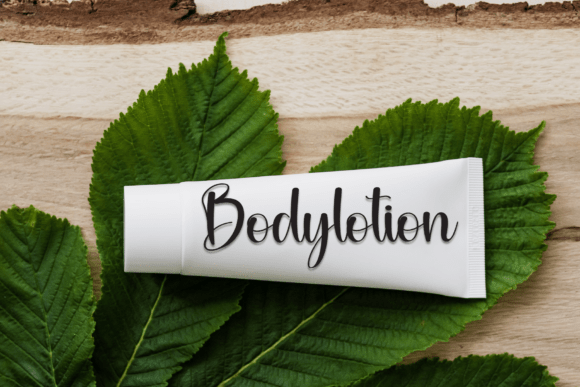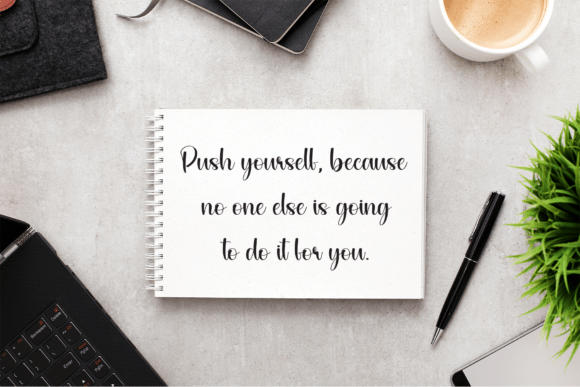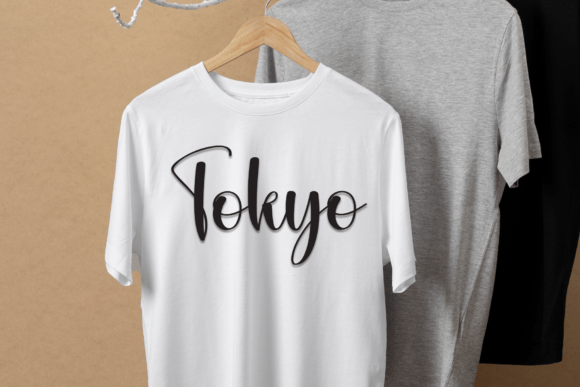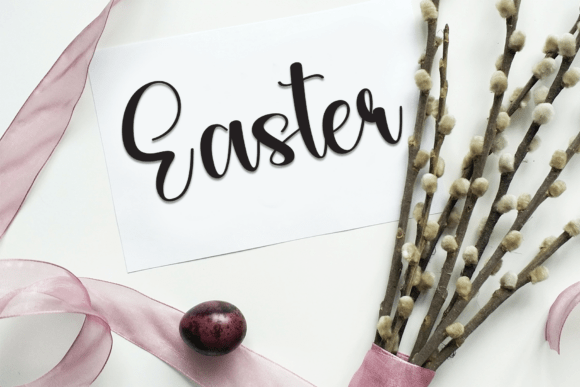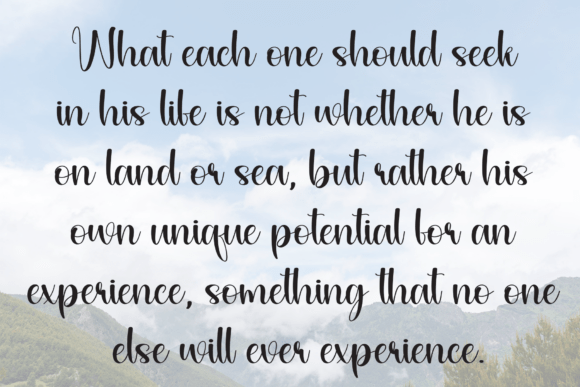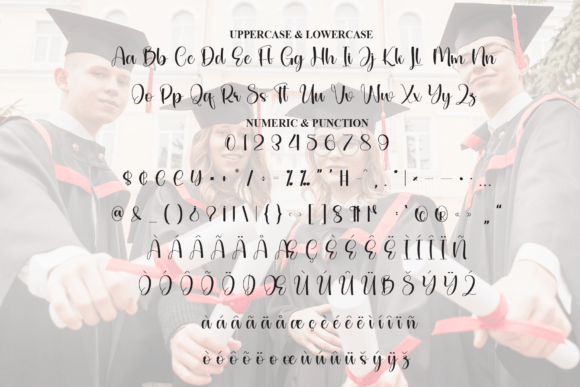
Introducing Graduation Font: The Perfect Blend of Elegance and Playfulness
Are you looking for a font that can add a touch of sophistication and whimsy to your designs? Look no further than Graduation Font, a stylish handwritten script font that is sure to capture the essence of elegance and playfulness in every stroke. With its flowing curves and natural rhythm, Graduation Font is the perfect choice for designers and crafters who want to add a personal, charming touch to their projects.
The Characteristics of Graduation Font
Graduation Font is a beautifully designed handwritten script font that boasts a range of characteristics that make it stand out from the crowd. Its flowing curves and natural rhythm give it a sense of movement and fluidity, making it perfect for use in invitations, branding, and social media. The font’s elegant design brings a sense of warmth, sophistication, and creativity to any project, making it ideal for designers and crafters who want to create something truly special.
The Benefits of Using Graduation Font
So why choose Graduation Font for your next project? Here are just a few benefits of using this versatile and stylish font:
• Elegance and Sophistication: Graduation Font adds a touch of elegance and sophistication to any project, making it perfect for use in high-end branding, invitations, and social media.
• Playfulness and Whimsy: Despite its elegant design, Graduation Font also has a playful and whimsical side, making it perfect for use in more creative and artistic projects.
• Personal Touch: The font’s handwritten design gives it a personal, charming touch that is sure to make your project stand out from the crowd.
• Versatility: Graduation Font is a versatile font that can be used in a range of projects, from invitations and branding to social media and more.
Using Graduation Font in Your Designs
So how can you use Graduation Font in your designs? Here are a few ideas to get you started:
• Invitations: Use Graduation Font to create beautiful, elegant invitations for weddings, parties, and other special occasions.
• Branding: Add a touch of sophistication and elegance to your brand with Graduation Font, perfect for use in logos, business cards, and more.
• Social Media: Use Graduation Font to create eye-catching social media graphics, perfect for sharing on Instagram, Facebook, and more.
• Crafting: Graduation Font is also perfect for use in crafting projects, such as scrapbooking, card making, and more.
Tips for Getting the Most Out of Graduation Font
Here are a few tips for getting the most out of Graduation Font:
• Experiment with Different Sizes and Colors: Graduation Font looks great in a range of sizes and colors, so don’t be afraid to experiment and find the perfect combination for your project.
• Pair with Other Fonts: Graduation Font pairs well with a range of other fonts, so try pairing it with a bold font for headings or a clean font for body text.
• Use in Combination with Images: Graduation Font looks great when used in combination with images, so try adding it to your photos, illustrations, and more.
In conclusion, Graduation Font is a stylish and versatile handwritten script font that is perfect for designers and crafters who want to add a touch of elegance and playfulness to their projects. With its flowing curves and natural rhythm, Graduation Font is sure to capture the essence of sophistication and whimsy in every stroke. Whether you’re creating invitations, branding, social media graphics, or crafting projects, Graduation Font is the perfect choice.